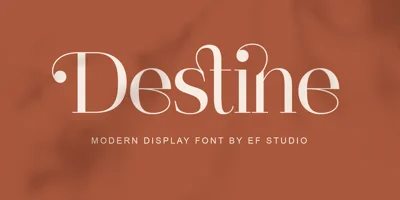
Destine Font
Destine Font is excellent for inspirational coaching branding, motivational book covers, personal development marketing, life coaching materials, spiritual wellness campaigns, transformational workshop promotions, destiny-themed event signage, self-help product packaging, empowerment program communications, and aspirational lifestyle advertising.
What makes Destine Font exciting is its purposeful elegance that perfectly captures the empowering journey and transformational potential found in personal growth and life-changing discoveries. This typeface features flowing letterforms with aspirational proportions and destiny-inspired details that evoke the sense of purpose and unlimited possibilities that come from pursuing one's true calling. The font's inspirational personality and transformational aesthetic make it ideal for personal development brands seeking to convey hope, potential, and the life-changing power that comes from discovering authentic purpose and following one's destined path.
Destine Font family includes inspiring weight variations and transformational alternatives that enhance its purposeful appeal while providing design flexibility for coaching and wellness applications. The font features flowing ligatures, destiny-themed ornaments, and aspirational character variations that create authentic empowerment atmosphere for personal development and inspirational branding.
Life coaches and personal development companies consistently select Destine Font for projects requiring authentic inspirational appeal and transformational credibility. The font's purposeful character excels in applications targeting individuals seeking personal growth, life transformation, and authentic purpose discovery. Whether you're designing for coaching services, self-help materials, or empowerment programs, this inspiring typeface delivers the transformational authenticity and purposeful elegance that resonates with audiences seeking genuine personal growth and the empowering realization that comes from discovering and pursuing their true destiny and life purpose.